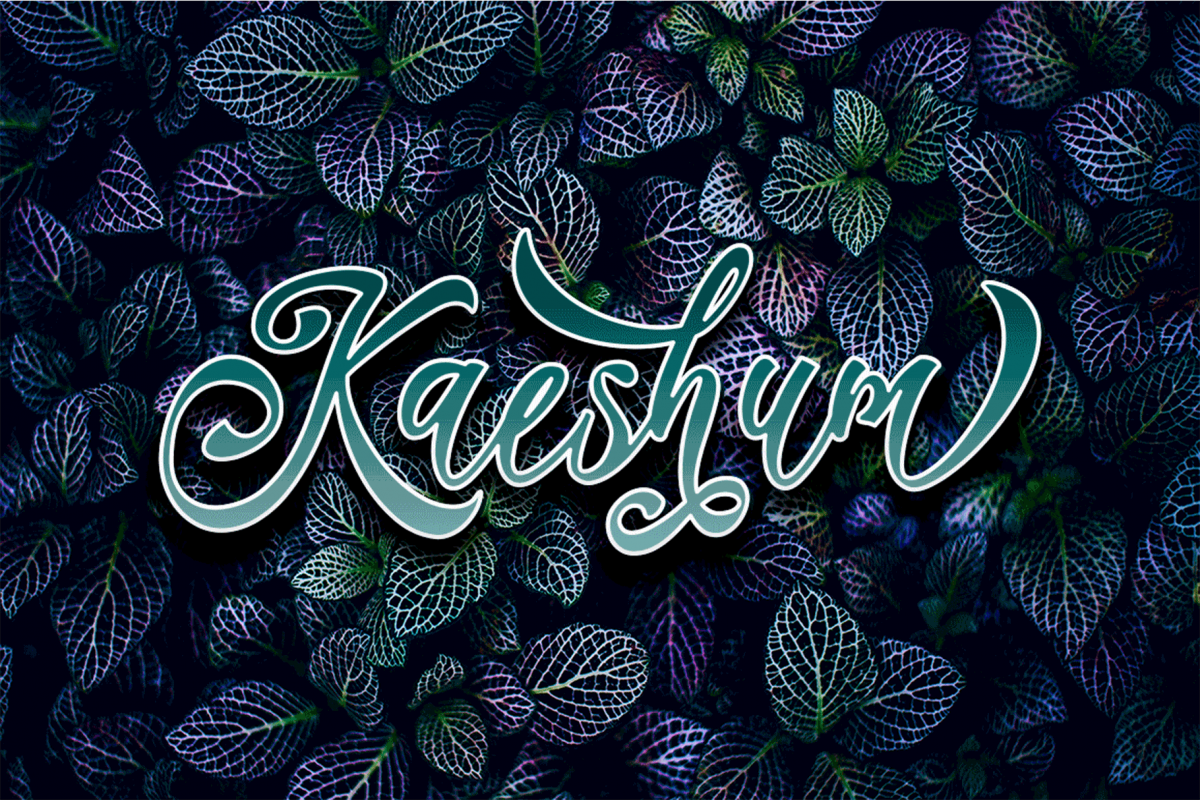
Kaeshum Script - BOLD
Kaeshum is elegant script with a new Bold stylish, a perfection style of the letters you want to use, modern handwriting with many alternatives. Now this is an opentype! It's smart and in line with your wishes! You are welcome to use it, suitable for various purposes: logo, signatures, corporate symbol, wedding invitation, title, creative, t-shirt, business card, letterhead, nameplate, headings, label, poster, news, badge, letterhead, cutting, hot stamping, quotation, etc. Includes the initial letter to terminal, alternative, ligature and multiple language support. Programs that support OpenType features such as Adobe Photoshop CC, Adobe Illustrator CS, Adobe Indesign, Corel Draw, and Microsoft Office.
The Features of this fonts is ;
• Standart ligatures
• Discretionary ligatures
• Stylistic sets
• PUA Unicode (Private Use Areas)
Languages supported ; Breton, Catalan, Czech, Danish, Estonian,French, German, Hungarian, Icelandic, Italian, Romanian, Scottish Gaelic, Slovak, Latvian, Lithuanian, Norwegian, English, Finnish, Polish, Portuguese, Slovenian, Spanish, Swedish, Turkish, Welsh. Basically, all european languages that are based on latin alphabet.